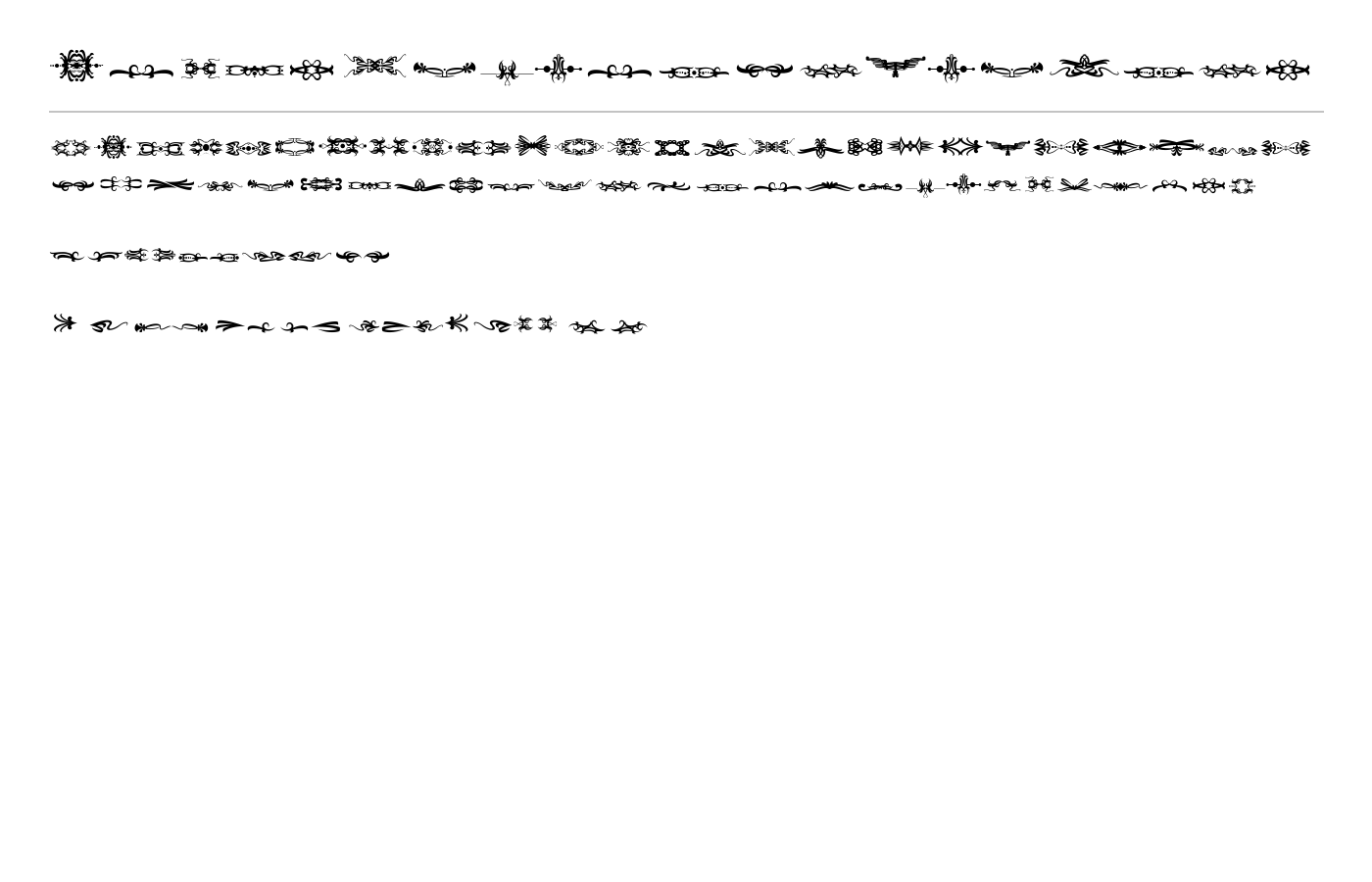
Bougy PersonalUseOnly is a decorative ornamental font that features intricate, symmetrical flourishes and elegant swirls, making it perfect for adding a vintage or classical touch to designs. Its delicate and detailed nature suits wedding invitations, luxury branding, and decorative borders where a refined, artistic flair is desired rather than for body text. This font excels in creating a sophisticated and ornamental look for embellishments and accents.
Bougy_PersonalUseOnly Font
About Bougy_PersonalUseOnly Font
| Font family | Bougy_PersonalUseOnly Font |
| Designer | Gregory Medina ©dcodesign |